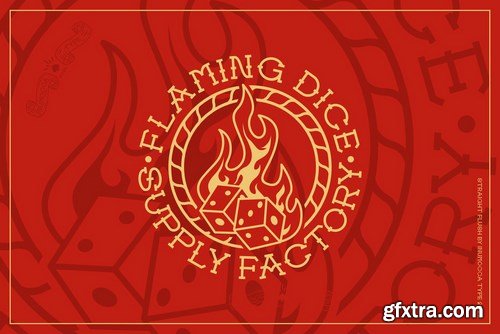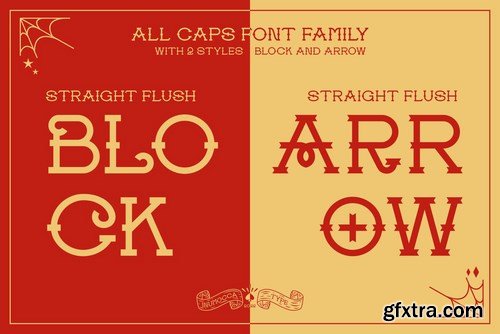
Straight Flush font family inspiration from Old school traditional tattoo font, simple and Strong Charachters. come with some simple Alternates for covering your Project, like Branding, Movie Title, Headline Letter, Bookcover or Book Content, Magazine cover, Poster, Quotes Lettering, Logos, and more your project design.